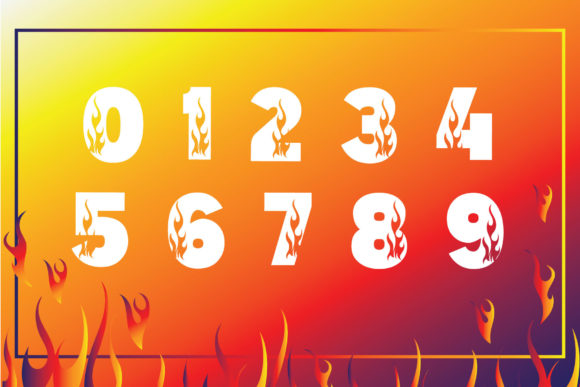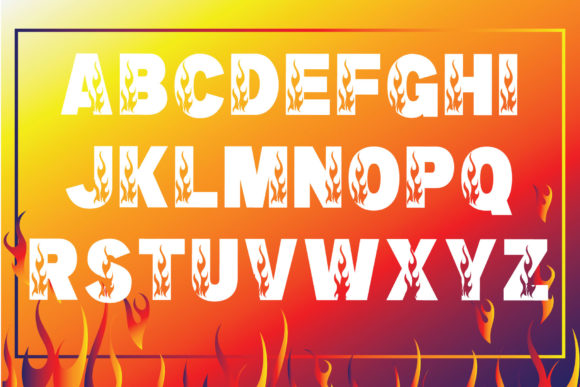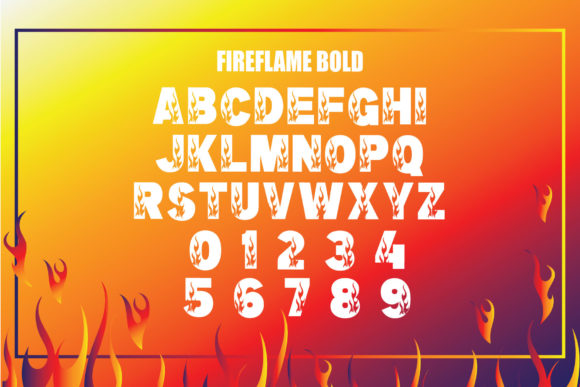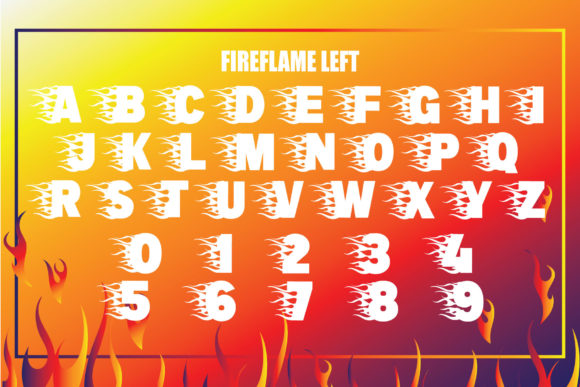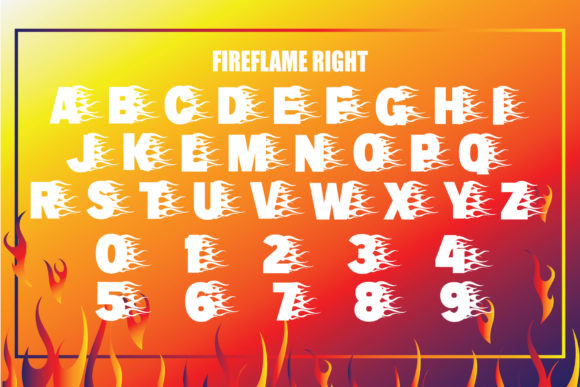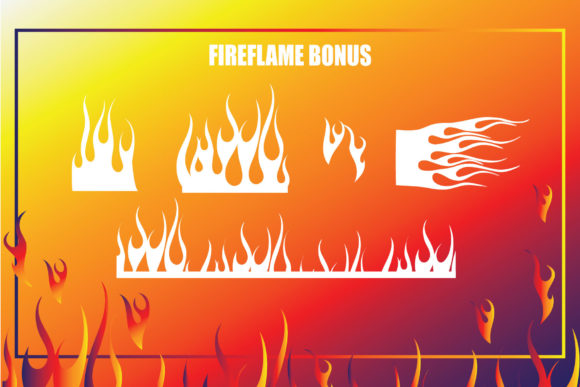
Introducing Fire Flame Trio Font: The Ultimate Display Font for Bold Designs
Are you tired of using the same old fonts for your designs? Do you want to add a touch of uniqueness and boldness to your posters, flyers, and prints? Look no further than the Fire Flame Trio Font! This cool-texture and assertive display font is perfect for designers and crafters who want to take their designs to the next level.
What is Fire Flame Trio Font?
Fire Flame Trio Font is a stunning display font that features a unique, textured design that resembles flames. The font is part of a trio set, which means it comes in three different styles that can be used together to create a cohesive and visually appealing design. The font is perfect for use on posters, flyers, prints, and any other design project that requires a bold and eye-catching font.
Key Features of Fire Flame Trio Font
- Cool-Texture Design: The Fire Flame Trio Font features a unique, textured design that gives it a cool and edgy look.
- Assertive Display Font: This font is designed to make a statement. Its bold and assertive design makes it perfect for use on posters, flyers, and prints.
- Trio Set: The font comes in three different styles that can be used together to create a cohesive design.
Endless Possibilities with Fire Flame Trio Font
With the Fire Flame Trio Font, the possibilities are endless! Here are just a few ideas to get you started:
- Posters: Use the Fire Flame Trio Font to create eye-catching posters for concerts, events, or promotions.
- Flyers: Add a bold and edgy touch to your flyers with this unique font.
- Prints: Use the font to create stunning prints for your business or personal projects.
- Social Media Graphics: Use the font to create bold and eye-catching social media graphics that will grab the attention of your followers.
Why Choose Fire Flame Trio Font?
There are many fonts available for designers and crafters, but Fire Flame Trio Font stands out from the rest. Here are just a few reasons why:
- Unique Design: The font features a unique, textured design that will set your designs apart from the rest.
- High-Quality: The font is high-quality and will look great on any design project.
If you’re looking for a bold and eye-catching font for your designs, look no further than the Fire Flame Trio Font. This cool-texture and assertive display font is perfect for designers and crafters who want to take their designs to the next level. With its unique design, high-quality, and ease of use, this font is a must-have for any designer or crafter.